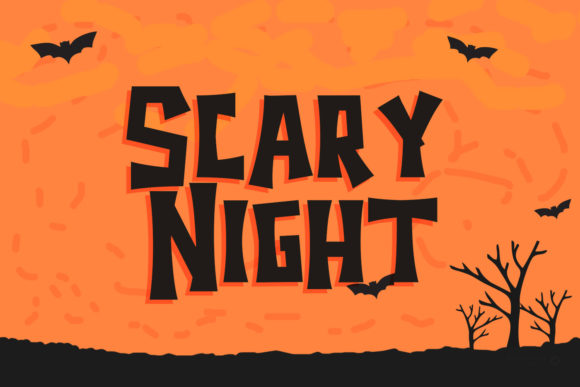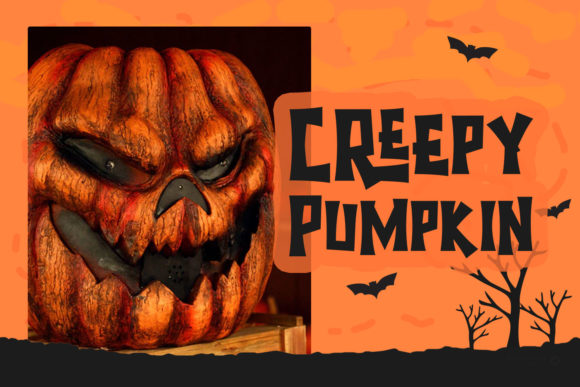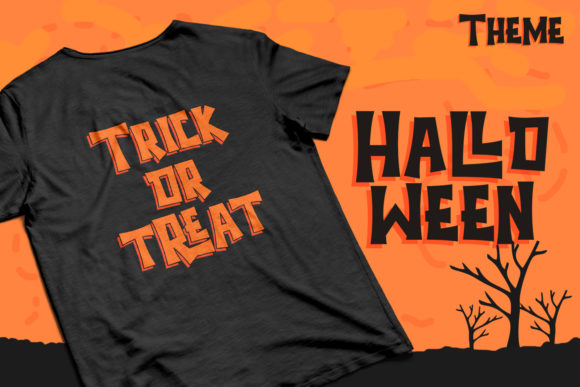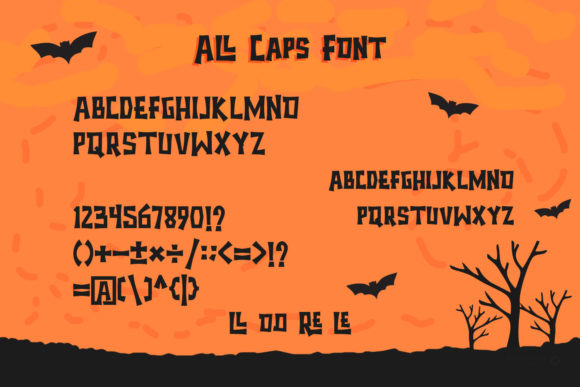
Halloween Font: The Ultimate Choice for Spooky Designs
Halloween is just around the corner, and what better way to get into the spooky spirit than with a creepy font that will send shivers down the spine? Look no further than the Halloween Font, a scary, weird, and creepy typeface that’s perfect for adding a touch of horror to any design project. In this article, we’ll dive into the world of Halloween Font and explore its features, uses, and benefits for designers and crafters.
The Perfect Font for Halloween Designs
The Halloween Font is a unique and terrifying typeface that’s specifically designed to capture the essence of the spookiest night of the year. Its irregular shapes, bold lines, and eerie feel make it the perfect choice for creating eye-catching and unsettling designs. Whether you’re working on a DIY project, a client’s branding, or a spooky invitation, this font is sure to add a touch of horror that will leave a lasting impression.
Key Features of Halloween Font
- Scary and Creepy: The Halloween Font is designed to be unsettling and eerie, making it perfect for Halloween-themed designs.
- Unique and Distinguishable: Its irregular shapes and bold lines make it stand out from other fonts, ensuring your designs will grab attention.
- Versatile: The Halloween Font can be used for a wide range of design projects, from invitations and posters to logos and branding.
Using Halloween Font in Design Projects
The Halloween Font can be used in a variety of design projects, from spooky invitations and posters to creepy logos and branding. Here are a few ideas to get you started:
- Halloween Invitations: Create eye-catching and unsettling invitations that will set the tone for a spooky Halloween party.
- Poster Design: Use the Halloween Font to create creepy posters that will grab attention and leave a lasting impression.
- Logo Design: Create a unique and terrifying logo for a client or business that wants to stand out from the crowd.
- Branding: Use the Halloween Font to create a cohesive brand identity that’s perfect for Halloween-themed businesses or products.
Tips and Tricks for Using Halloween Font
Here are a few tips and tricks to help you get the most out of the Halloween Font:
- Experiment with Different Sizes: The Halloween Font looks great in large and small sizes, so experiment with different sizes to find the perfect fit for your design.
- Combine with Other Fonts: Try combining the Halloween Font with other fonts to create a unique and eye-catching design.
- Use in Combination with Images: The Halloween Font looks great when used in combination with spooky images, such as pumpkins, ghosts, and bats.
The Halloween Font is a unique and terrifying typeface that’s perfect for adding a touch of horror to any design project. Its irregular shapes, bold lines, and eerie feel make it the perfect choice for creating eye-catching and unsettling designs. Whether you’re a designer or crafter, the Halloween Font is sure to become a go-to in your toolkit. So why wait? Get creative with the Halloween Font and make this Halloween one to remember!